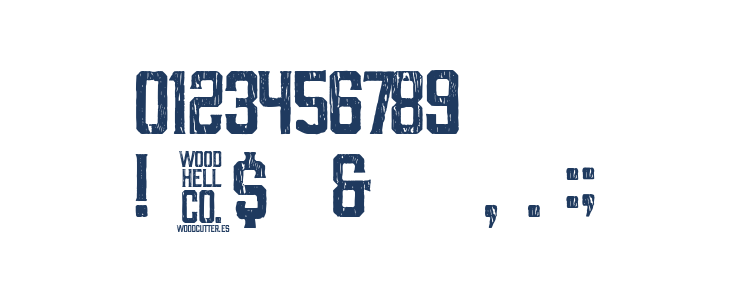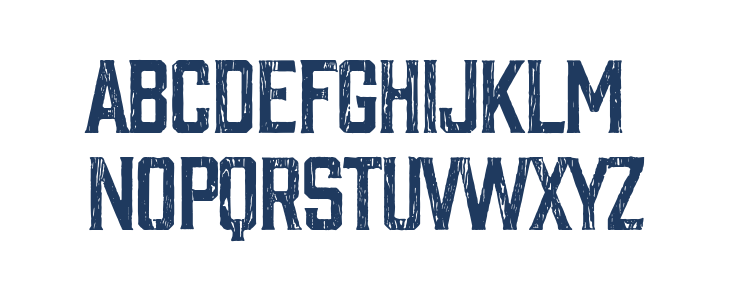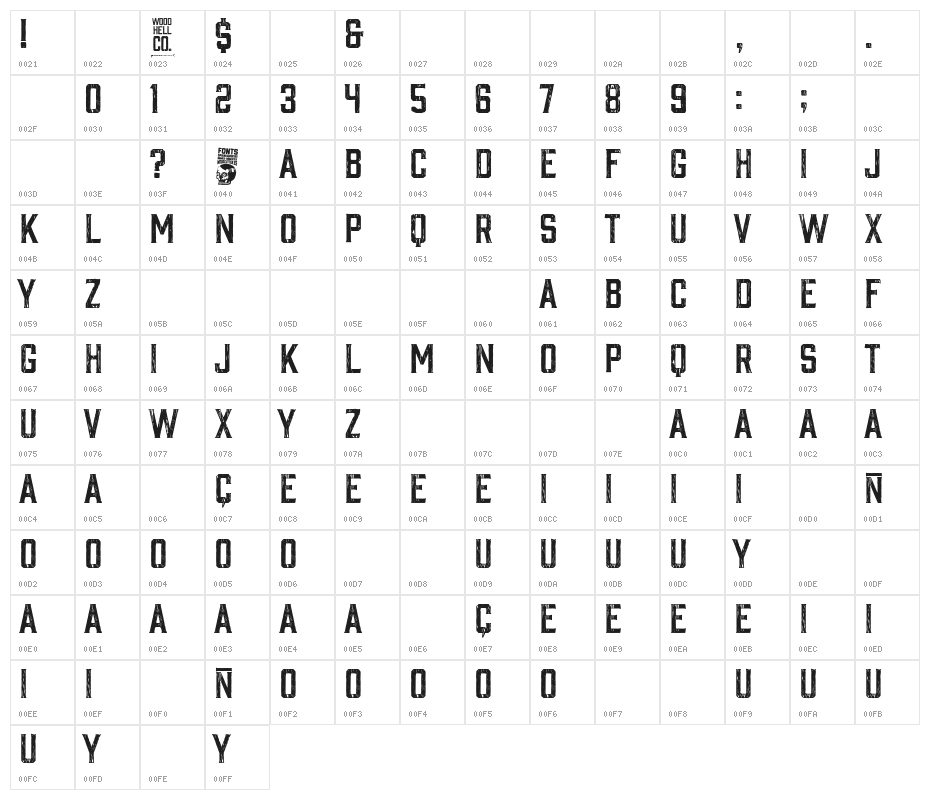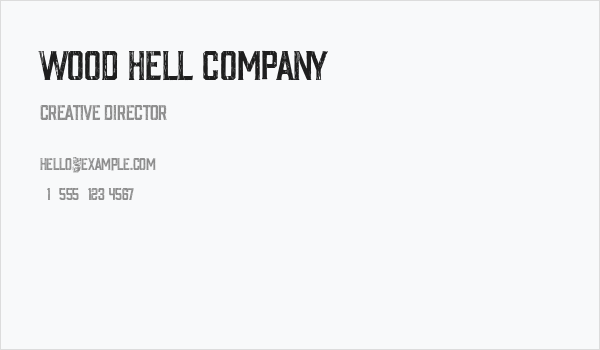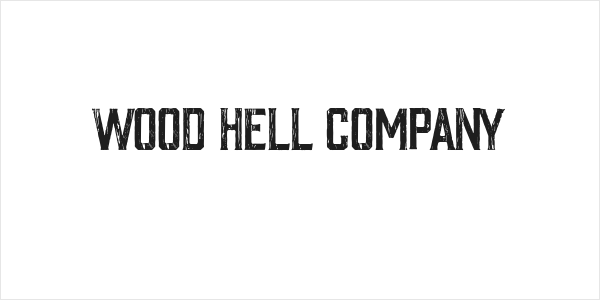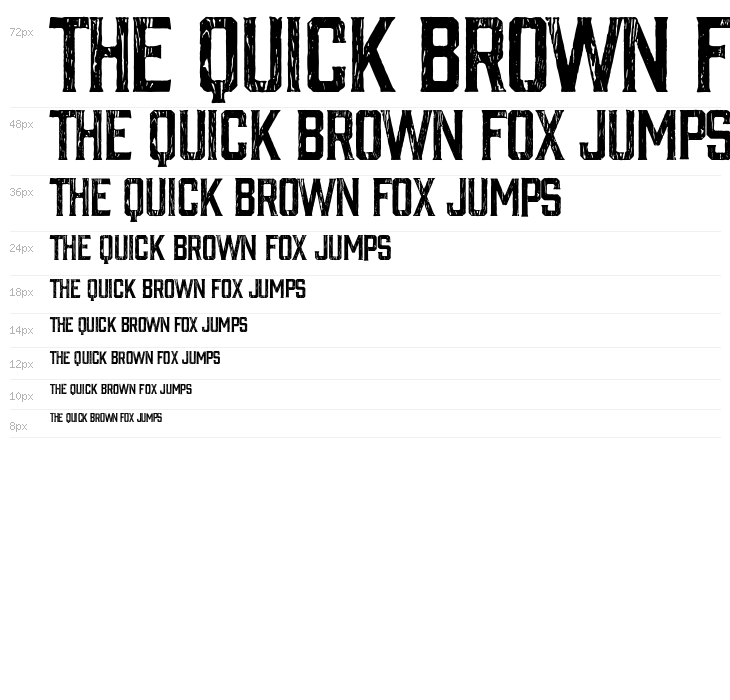
Wood Hell Company Font
Wood Hell Company Description
A bold, uppercase display typeface with a distressed, woodcut texture that gives each character a rugged, weathered appearance. The letterforms are geometric and blocky, with consistent stroke widths and sharp corners. The font includes numerals and a selection of punctuation and symbols, all sharing the same textured, worn effect.
| Overall Style | Decorative, Vintage, Rugged |
| Proposed Projects | Posters, vintage branding, signage, album covers, event flyers, apparel design. |